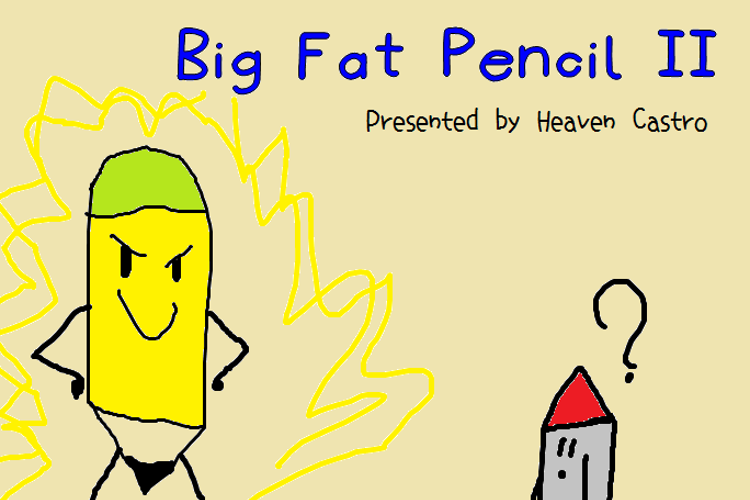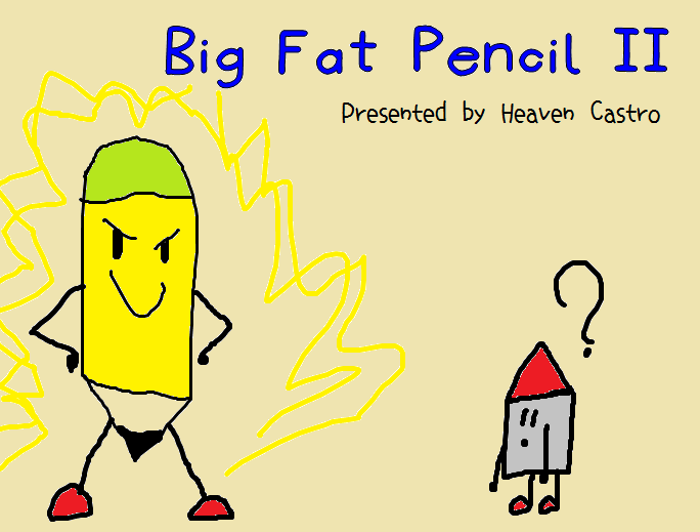
Big Fat Pencil 2 Font
This handwriting font is a sequel to Big Fat Pencil, which was made by me.
UPDATE in 2023: Здравствуйте! I updated the font to include Cyrillic support to cover languages that use this script like Russian, Bulgarian, Ukrainian and Serbian. Please enjoy and stay safe :)
UPDATE in 2025: Redesigned lowercase n with tilde (ñ) and added Yoruba support.